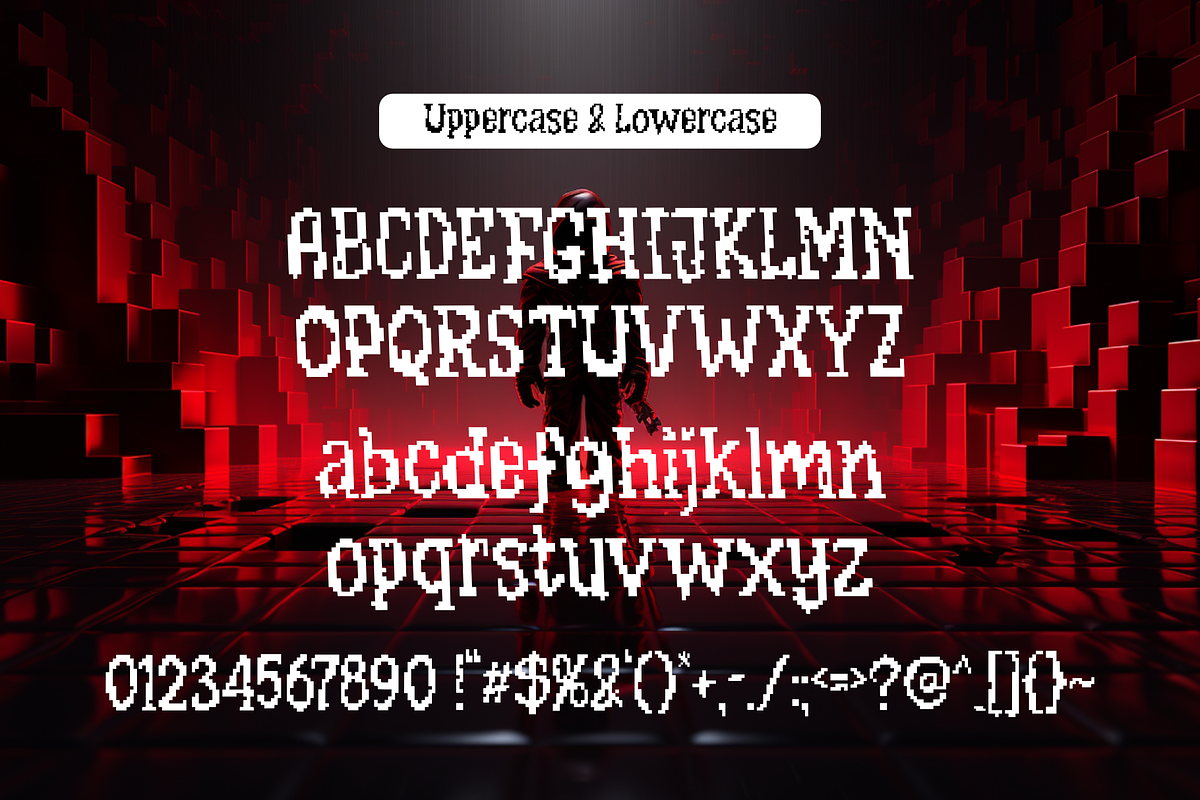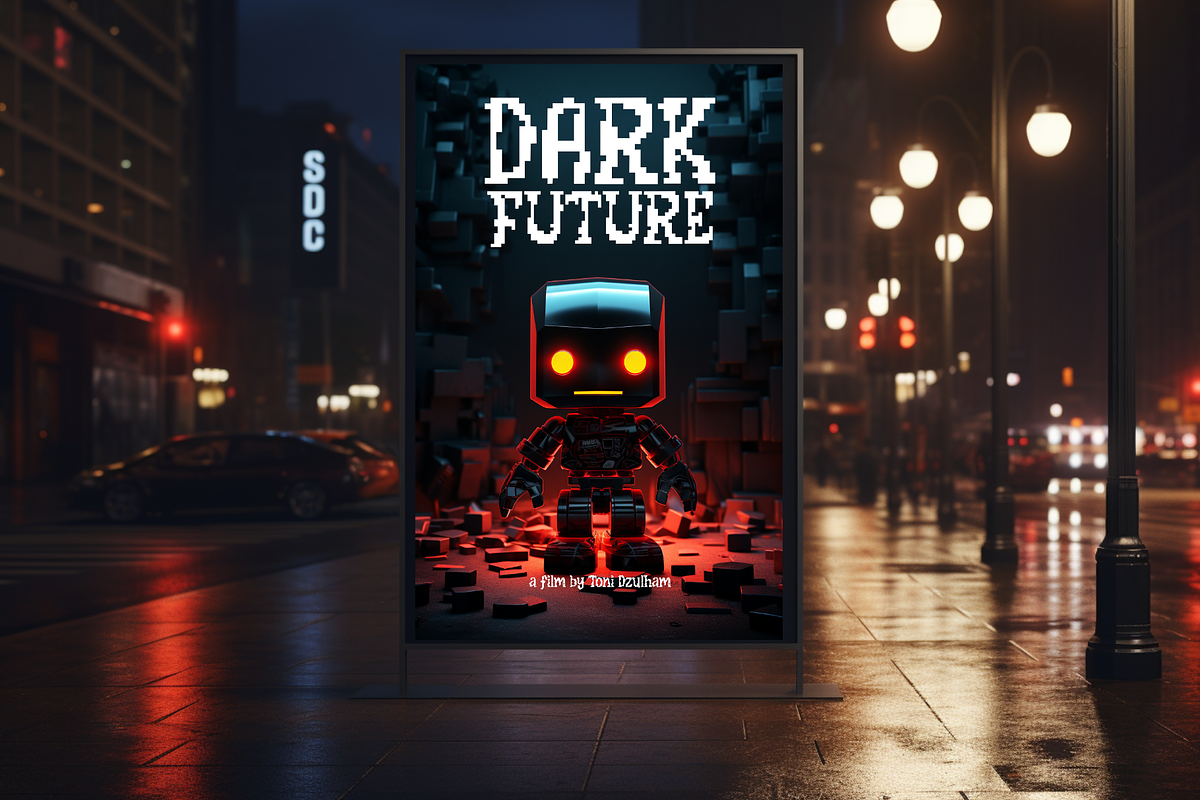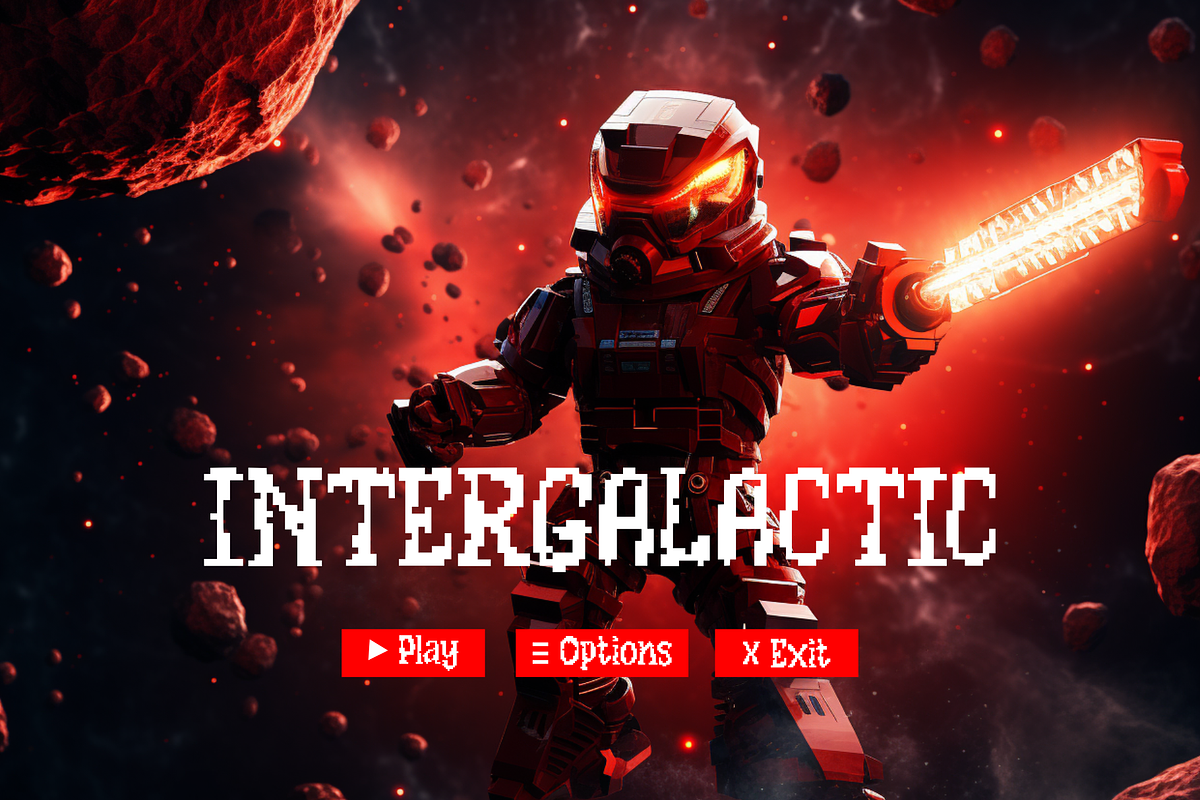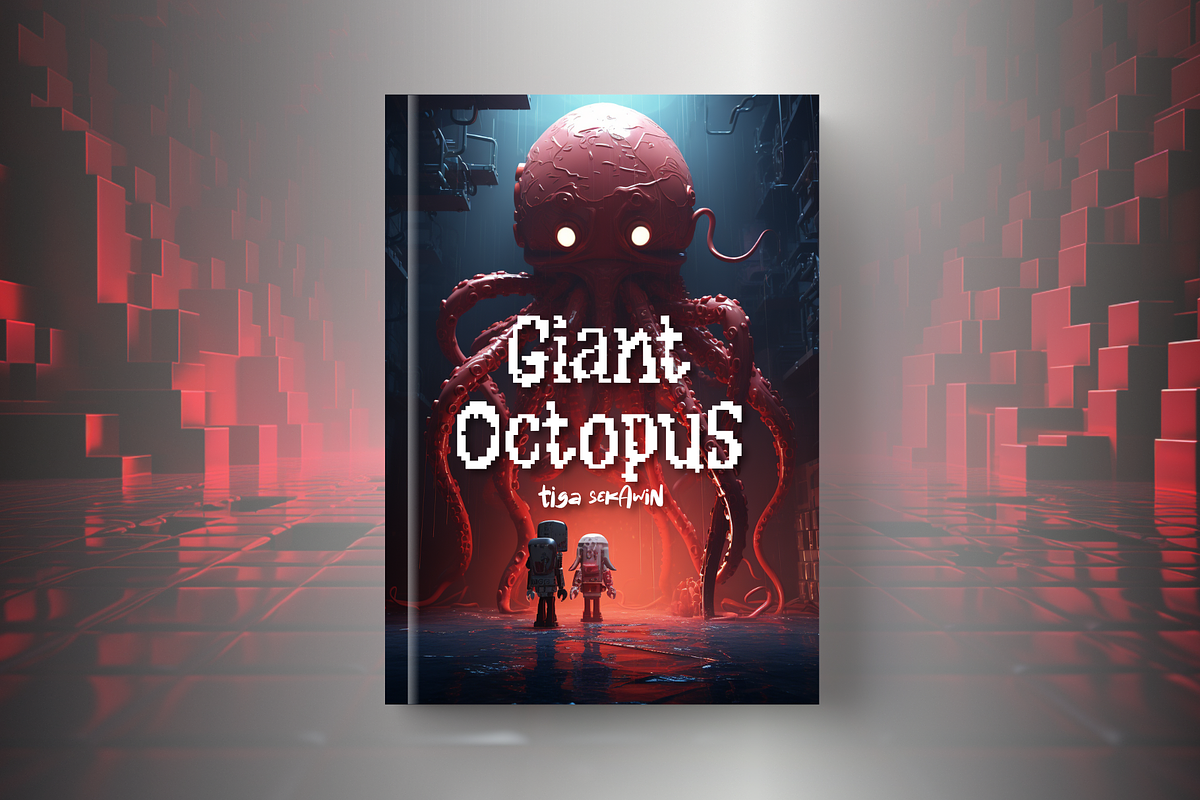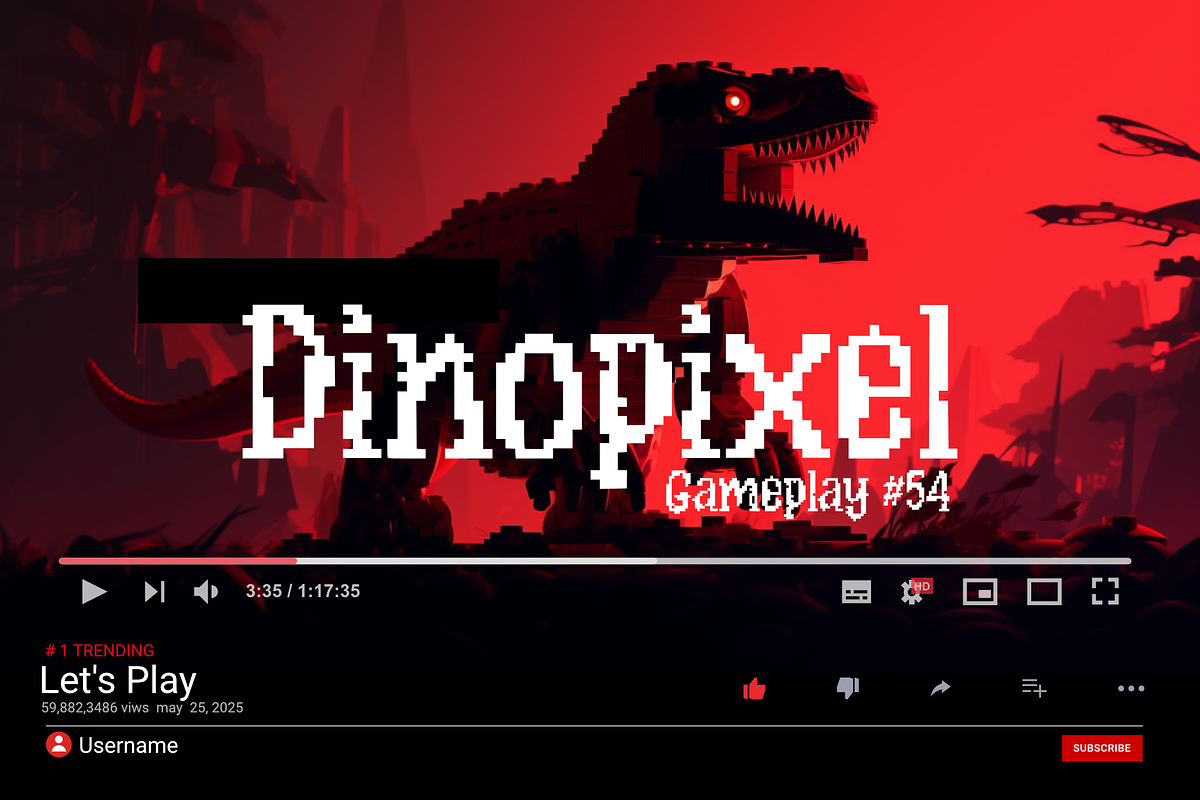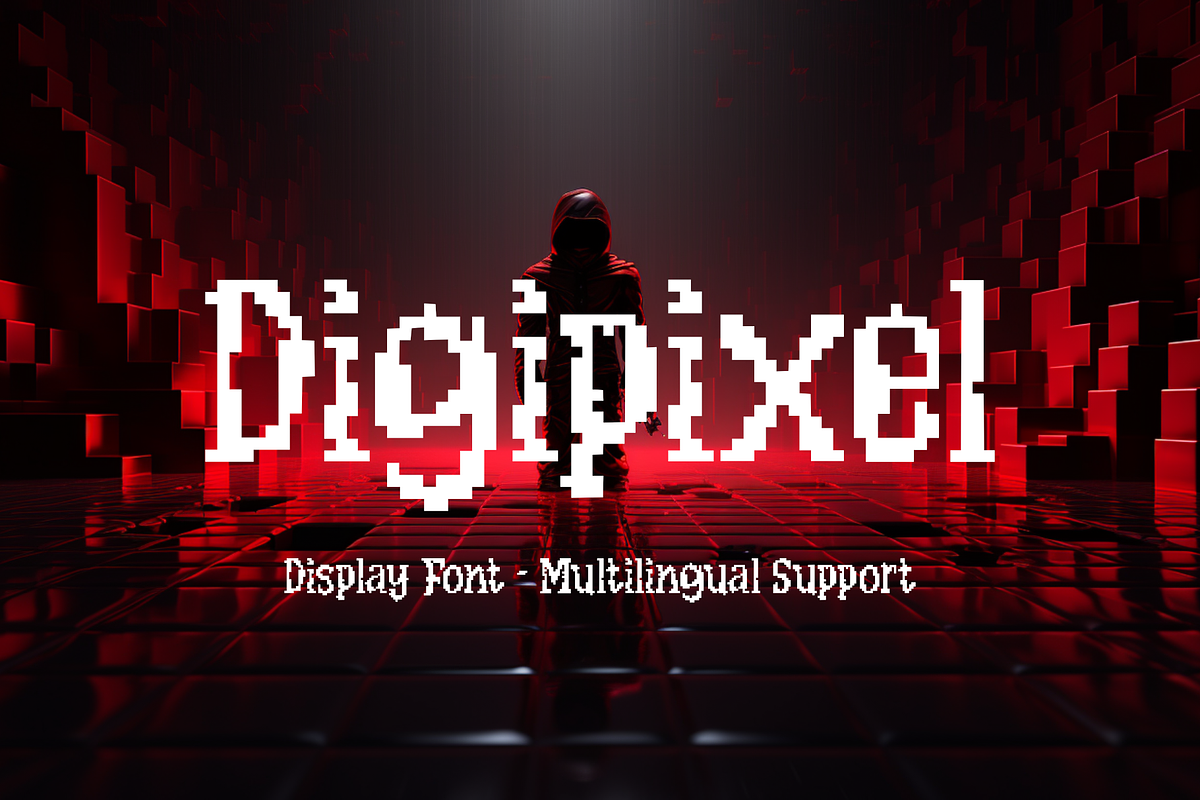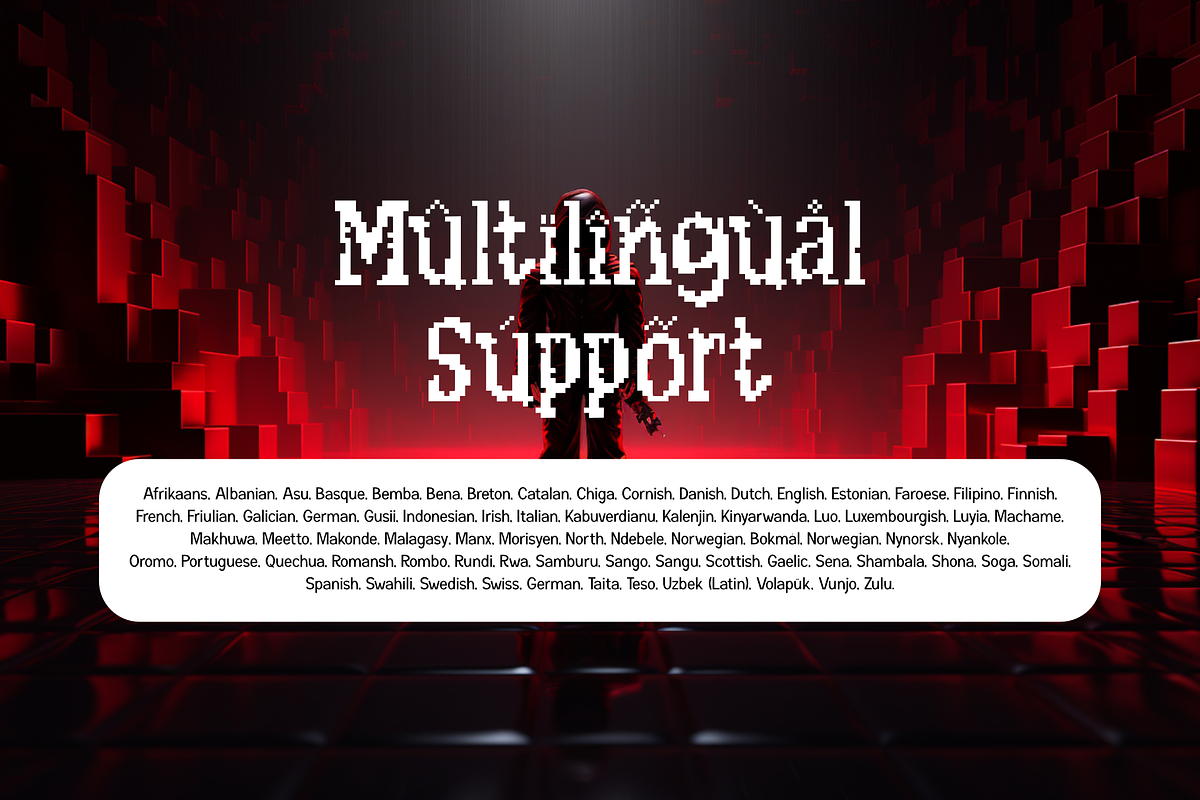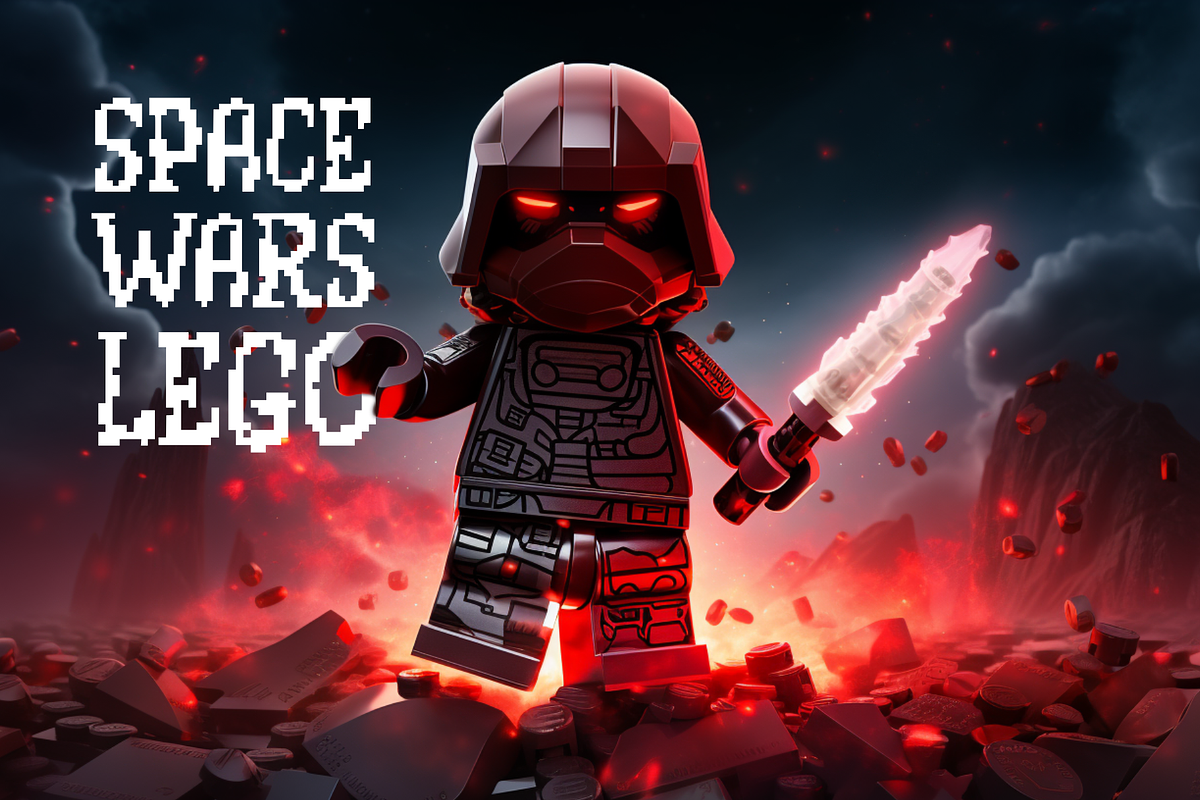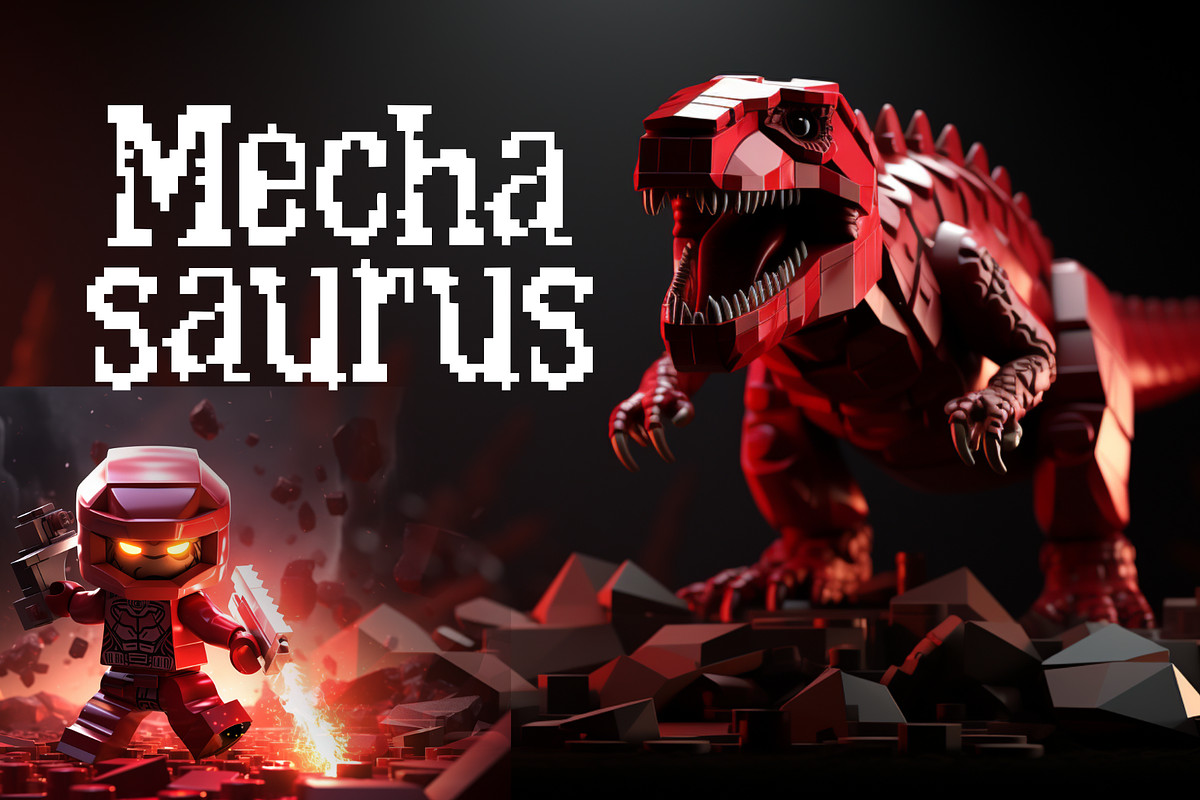
Digipixel – Display
Digipixel is a type of Display font that adopts a pixel art style. This font displays characters with shapes inspired by pixel art, where each character is formed by a set of dots (pixels) that create images or letters.
The main distinctive feature of Digipixel is its reminiscent appearance of classic video games and graphics from the past. Each character has well-defined dimensions, showcasing sharp lines that evoke the design of 8-bit and 16-bit graphics found in retro consoles and computers.
Despite being based on pixel art, Digipixel manages to convey a modern and stylish impression, suitable for projects aiming to highlight a sense of nostalgia and retro aesthetics. This font is often used in video games, websites, posters, or other design materials that seek to create a unique and enjoyable appeal.
- Multilingual Accent